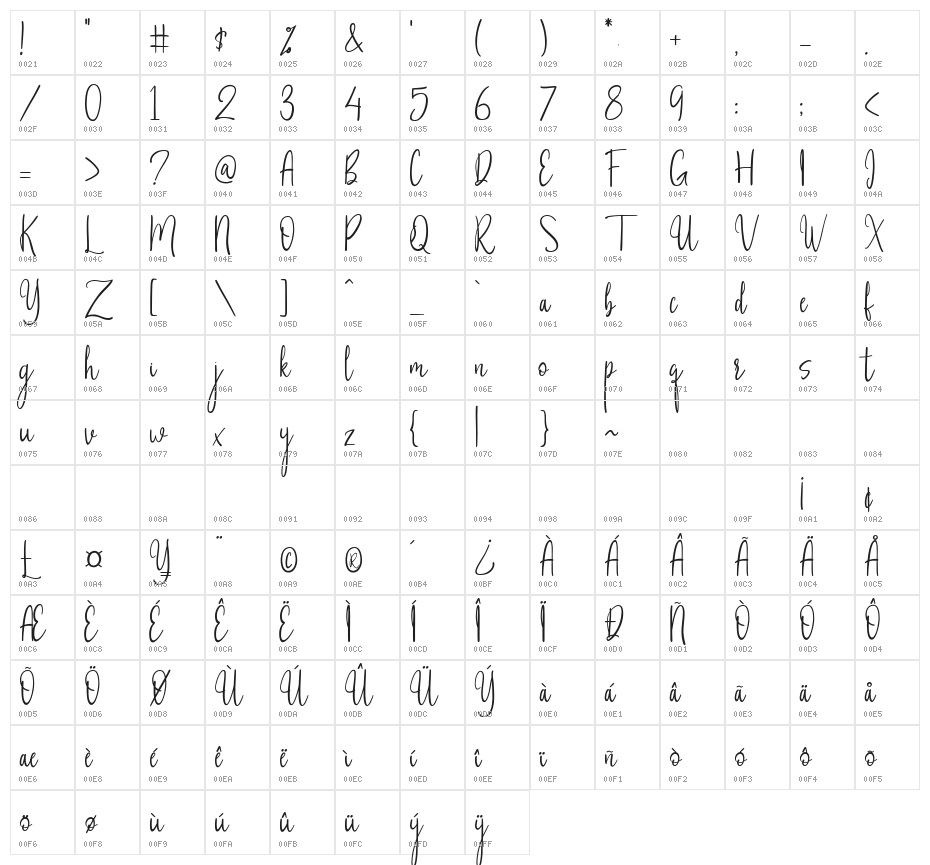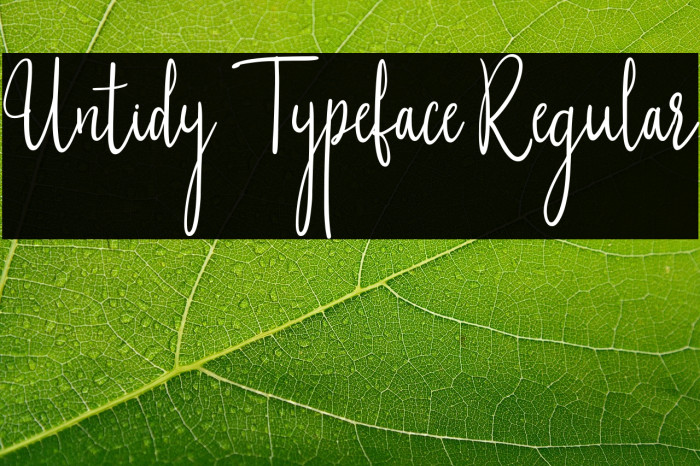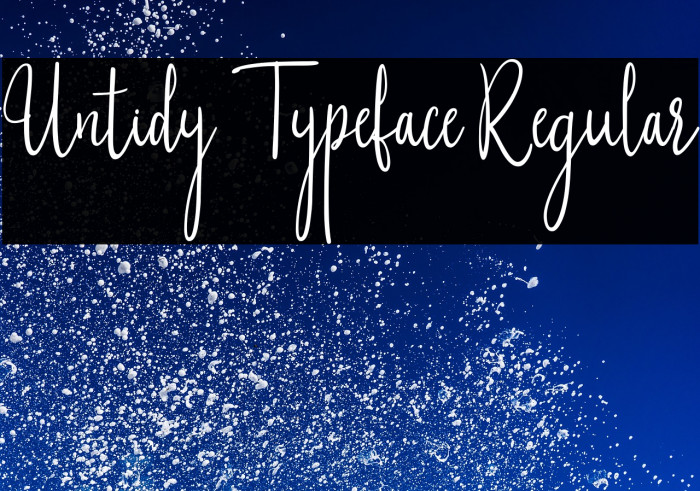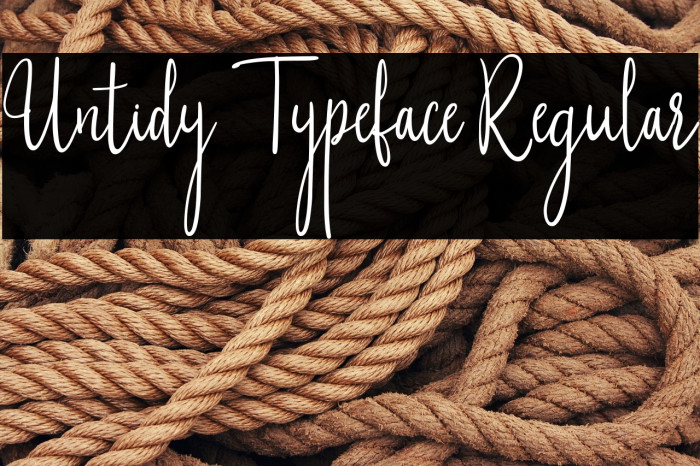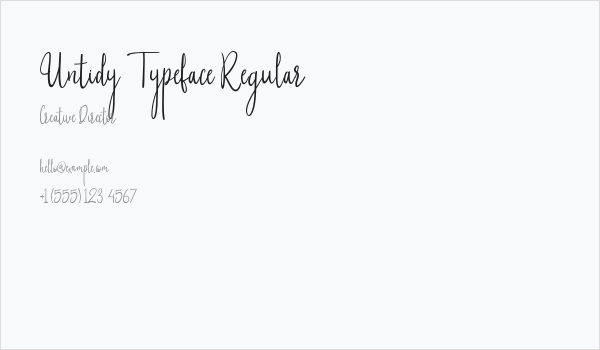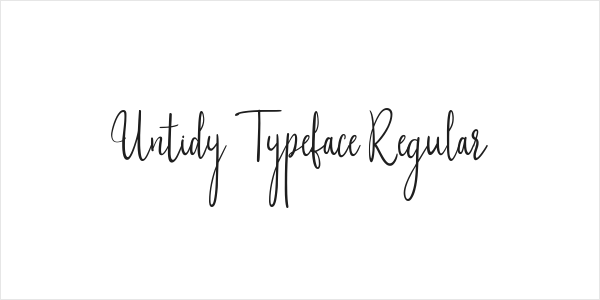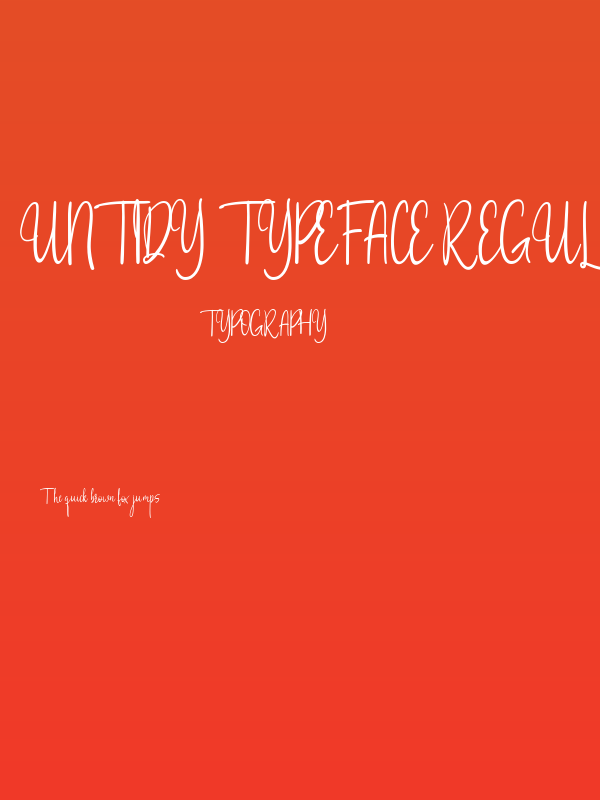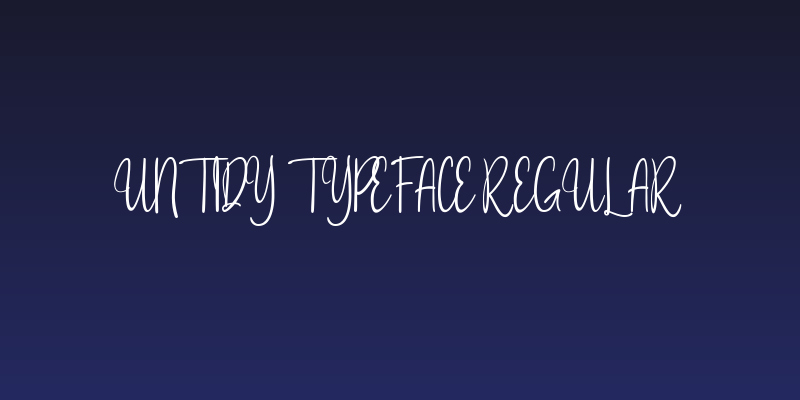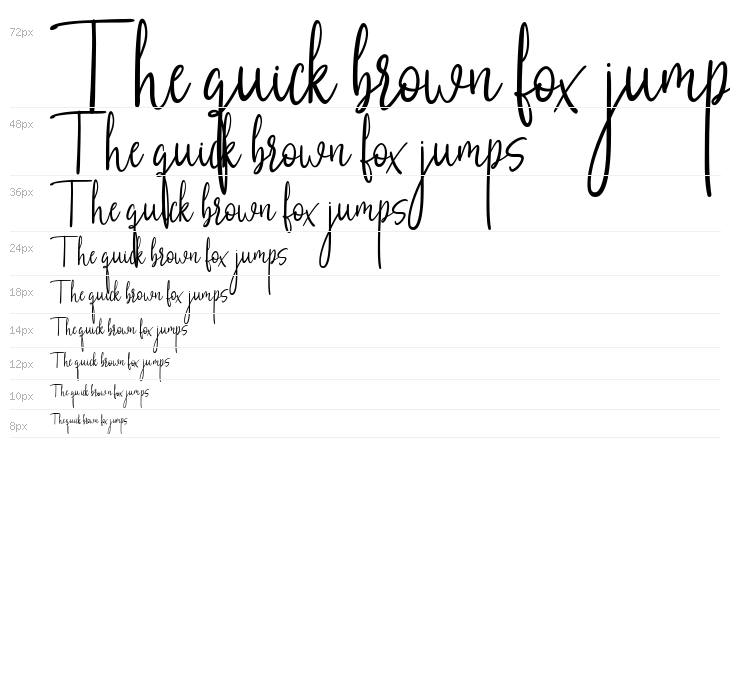
Untidy Typeface Regular Font
Untidy Typeface Regular Description
This typeface features a playful and informal handwritten style, characterized by its fluid and dynamic strokes. The uppercase letters are tall and narrow, with a slight slant that adds to the casual feel. The lowercase letters are more rounded and connected, creating a cohesive flow. Numbers and special characters maintain the same lively and whimsical aesthetic, making the font versatile for creative projects. The overall appearance is both approachable and stylish, perfect for adding a personal touch to any design.
| Proposed Projects | Ideal for greeting cards, invitations, personal branding, and creative social media graphics. |